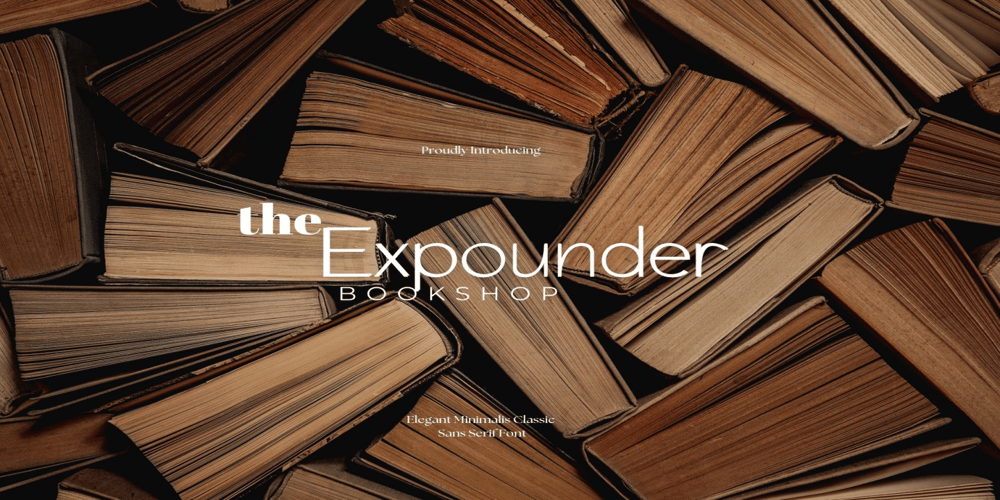
Expounder Font Family was designed by Gustav F. Schroeder and published by Adita Fonts. Expounder contains 1 styles and family package options. Expounder – Elegant Minimalist Classic Sans Serif Font – Modern Beauty Aesthetic Branding Expounder is a Minimalis Classic Sans font that combines simplicity with timeless elegance. Its sleek lines and balanced proportions make it suitable for a wide range of design projects. This font is versatile and can be used across various applications, including branding, invitation design, editorial design, web design, packaging, product catalogs and more. Its classic sans-serif style adds a touch of elegance to any design while maintaining a minimalist aesthetic. Comes with ligature features, alternates, and comprehensive support for both uppercase and lowercase letters, punctuation marks, and numerals. These features offer designers flexibility and creative freedom in their typographic processes. Additionally, the font provides multilingual support, ensuring accessibility for users worldwide. Crafted with expertise in minimalist design principles and typographic clarity, Expounder embodies the essence of timeless simplicity and classic elegance.